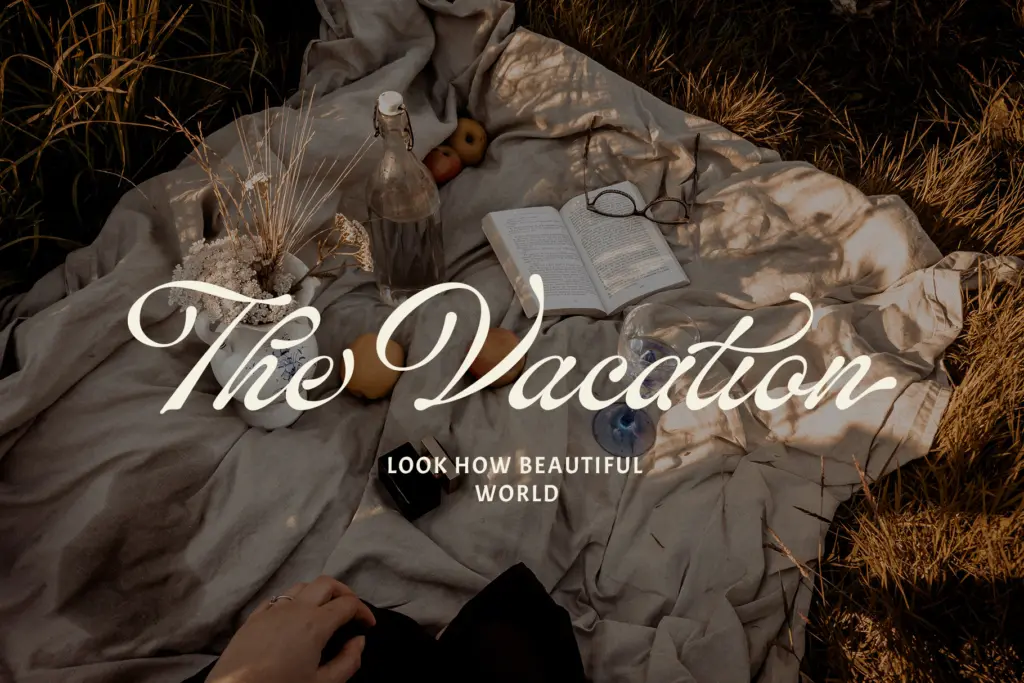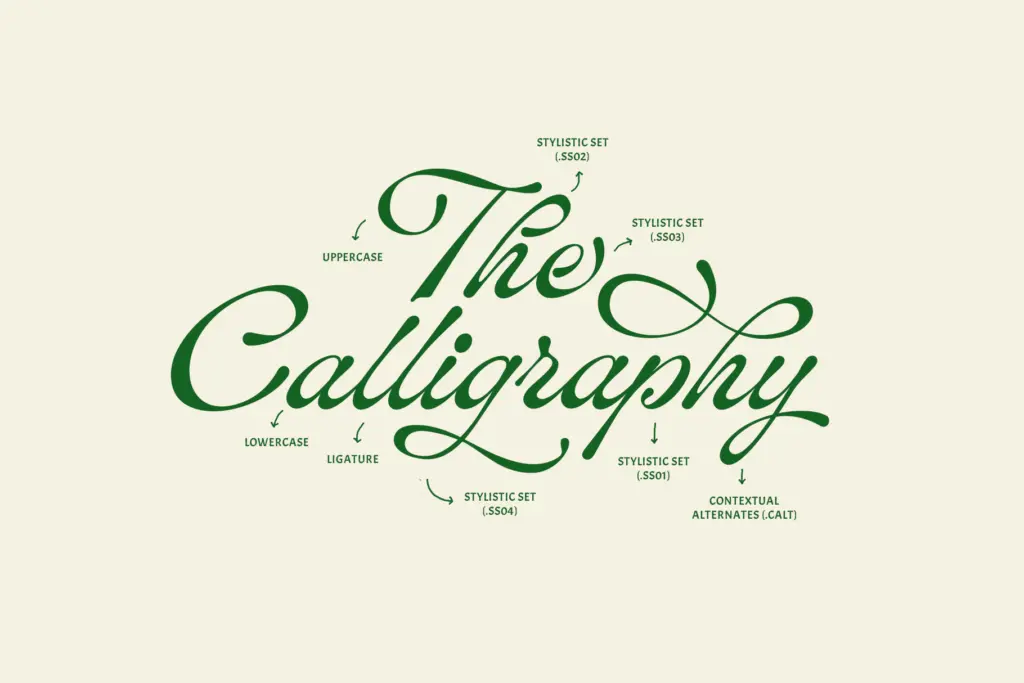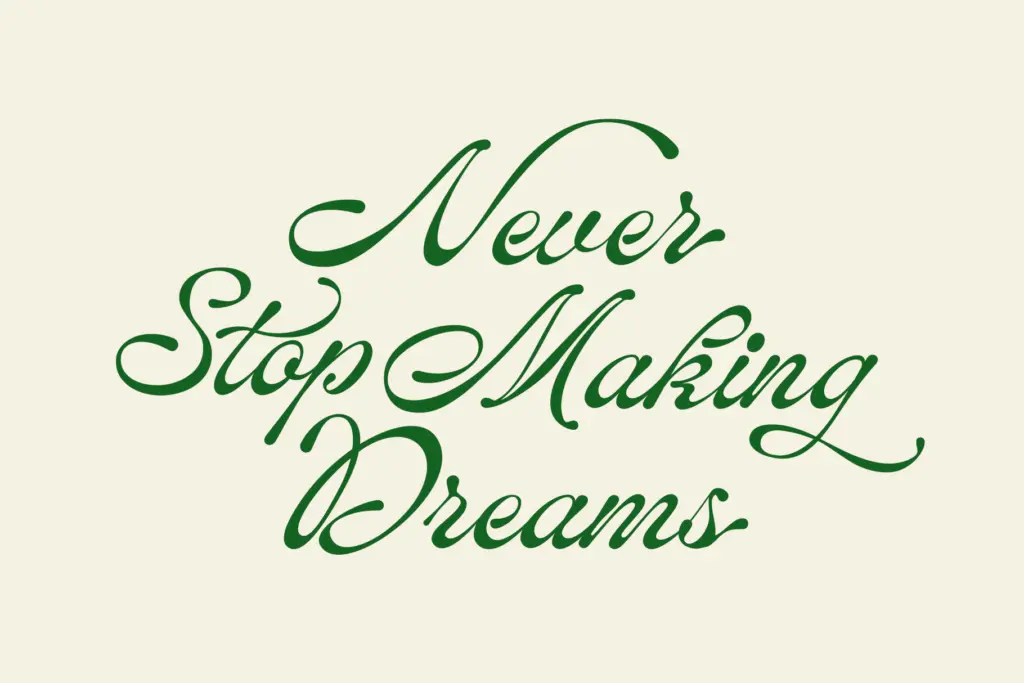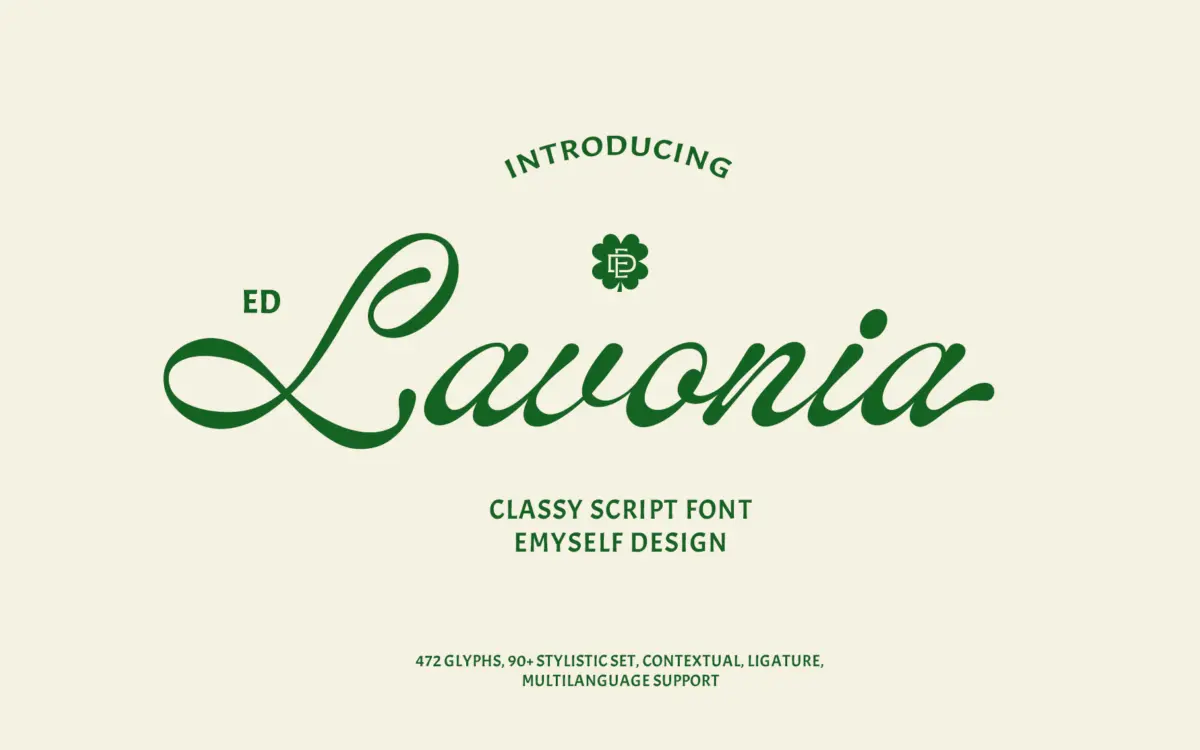
ED Lavonia sits in the well-populated field of connected, classic-leaning scripts, but it avoids the overly bouncy or overly formal extremes that define most of that category. The letters lean on a moderate slant with a consistent, unhurried rhythm — strokes thicken and thin in a way that reads as pen-drawn rather than calligraphy-brush-drawn. It’s closer to refined handwriting than to broad-nib script, which puts it in that middle ground buyers often call “classy” without being able to say why.
The joins between letters are the strongest part of the design. Entry and exit strokes are drawn with enough consistency that words flow rather than stutter, which is where a lot of script fonts at this price point fall apart. The x-height is kept modest, giving ascenders and descenders room to loop without crowding the line above or below. It won’t surprise anyone, but it doesn’t need to — the goal here is a script that reads as considered rather than novel.
With 472 glyphs and more than 90 stylistic sets plus contextual alternates and ligatures, ED Lavonia has the technical depth to avoid the repetition that plagues cheaper scripts — the same lowercase ‘a’ or capital ‘L’ repeating identically down a paragraph is the classic tell of an undercooked script font, and this one has clearly been built to dodge that. In practice, this means a designer willing to open the glyphs panel can vary word-endings, swap in swash capitals, or pull alternate lowercase forms to keep longer settings from feeling mechanical.
The catch, as with most stylistic-set-heavy scripts, is that none of this happens automatically in every app. Contextual alternates need software that supports OpenType features properly — a quick Canva drag-and-drop won’t unlock the same font that a proper layout program will. Buyers expecting the marketing-image variety straight out of the box in a basic editor will be disappointed; buyers working in Illustrator, InDesign, or Photoshop with the OpenType panel open will get real mileage out of it. The seller’s claim of multi-language support is worth confirming for your specific character needs before committing to a large-scale international project, since scripts often thin out past the core Latin set.
This is a font for short, expressive lines rather than paragraphs — logotypes, quote cards, invitation headlines, packaging call-outs, the top line of a letterhead. Its moderate slant and legible joins mean it holds up reasonably well at small sizes for a script, which is not something you can say about every option in this category, though anything below body-text scale still asks the reader to slow down a little, as all connected scripts do.
It pairs naturally with a plain sans or a restrained serif for supporting text, given how much personality the script itself carries. For branding work — wine labels, boutique packaging, wedding stationery — the depth of alternates gives a designer room to make each application feel slightly bespoke rather than obviously templated, provided the workflow supports pulling them in.
- Consistent, pen-like joins that keep connected words flowing rather than stuttering
- Over 90 stylistic sets and contextual alternates give genuine variation across repeated letters
- Holds up reasonably well at smaller sizes compared to more ornate scripts
- Full character variety depends on OpenType support, so basic editors won't show the font's best side
- Multi-language coverage should be verified against your specific needs before relying on it for international work
ED Lavonia is a competent, well-drawn classic script with real depth in its alternates and ligatures. It rewards designers who use OpenType features properly and offers less to those working in simpler tools. A dependable choice for short-form branding and invitation work rather than a standout.